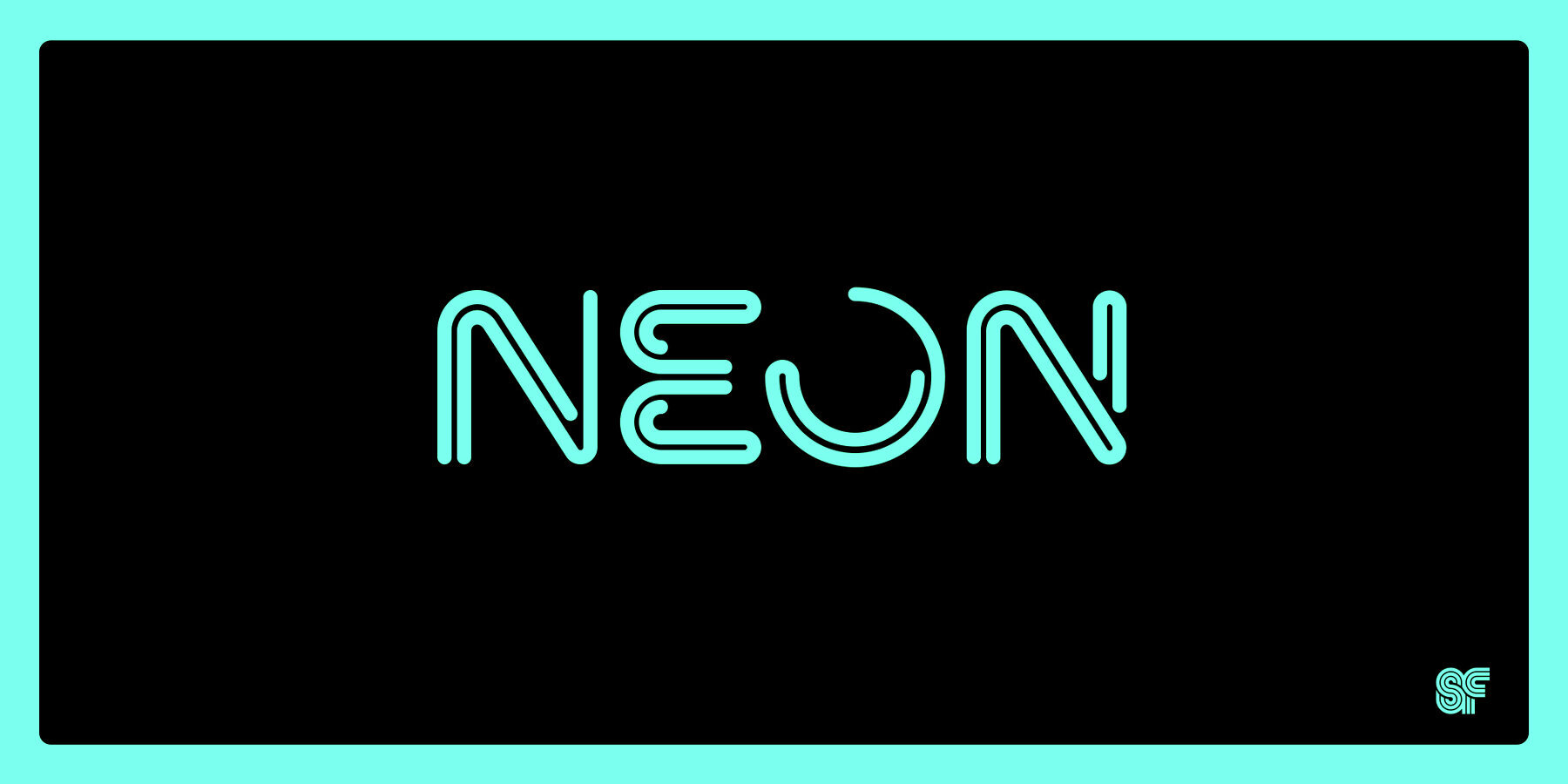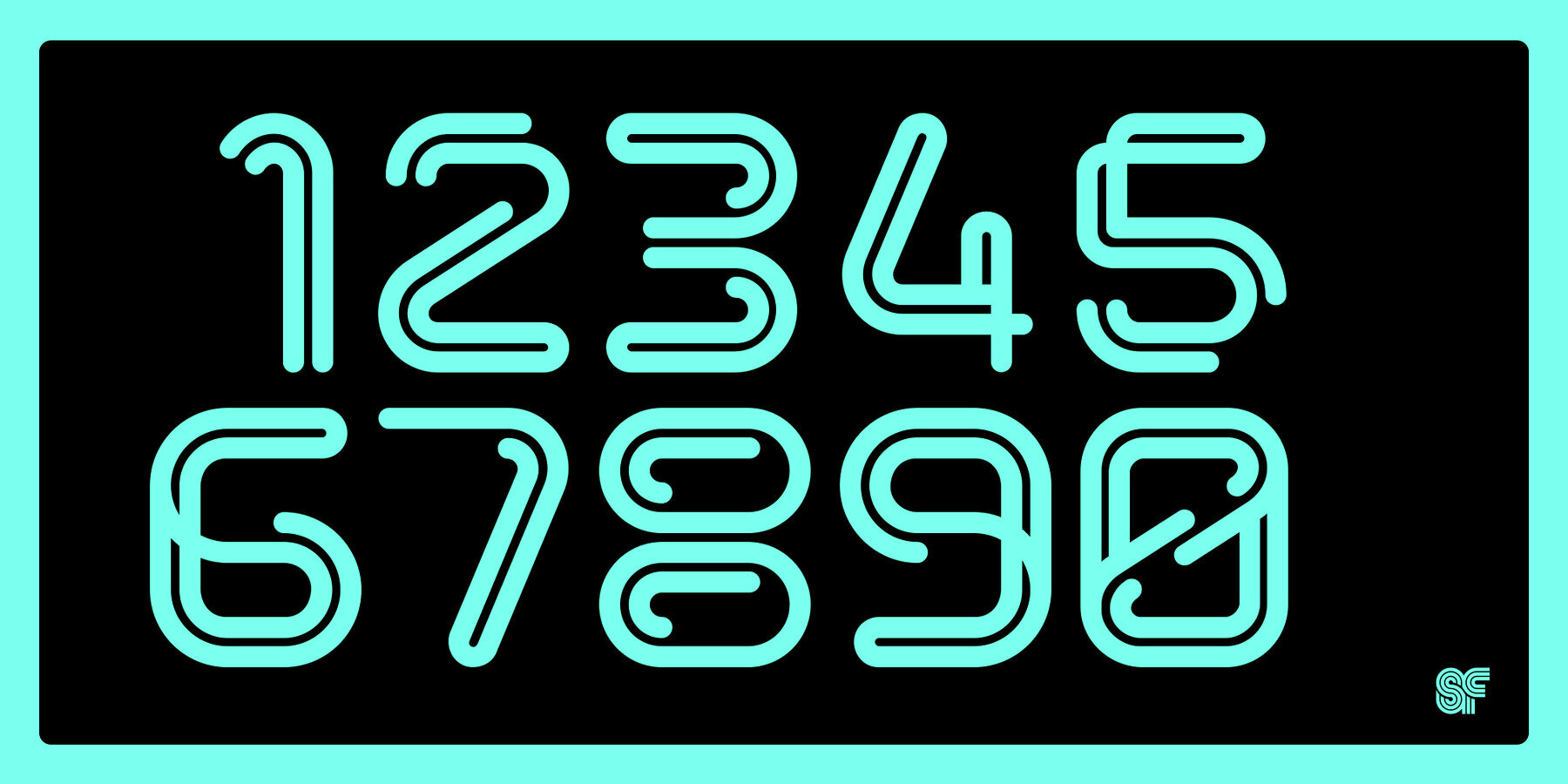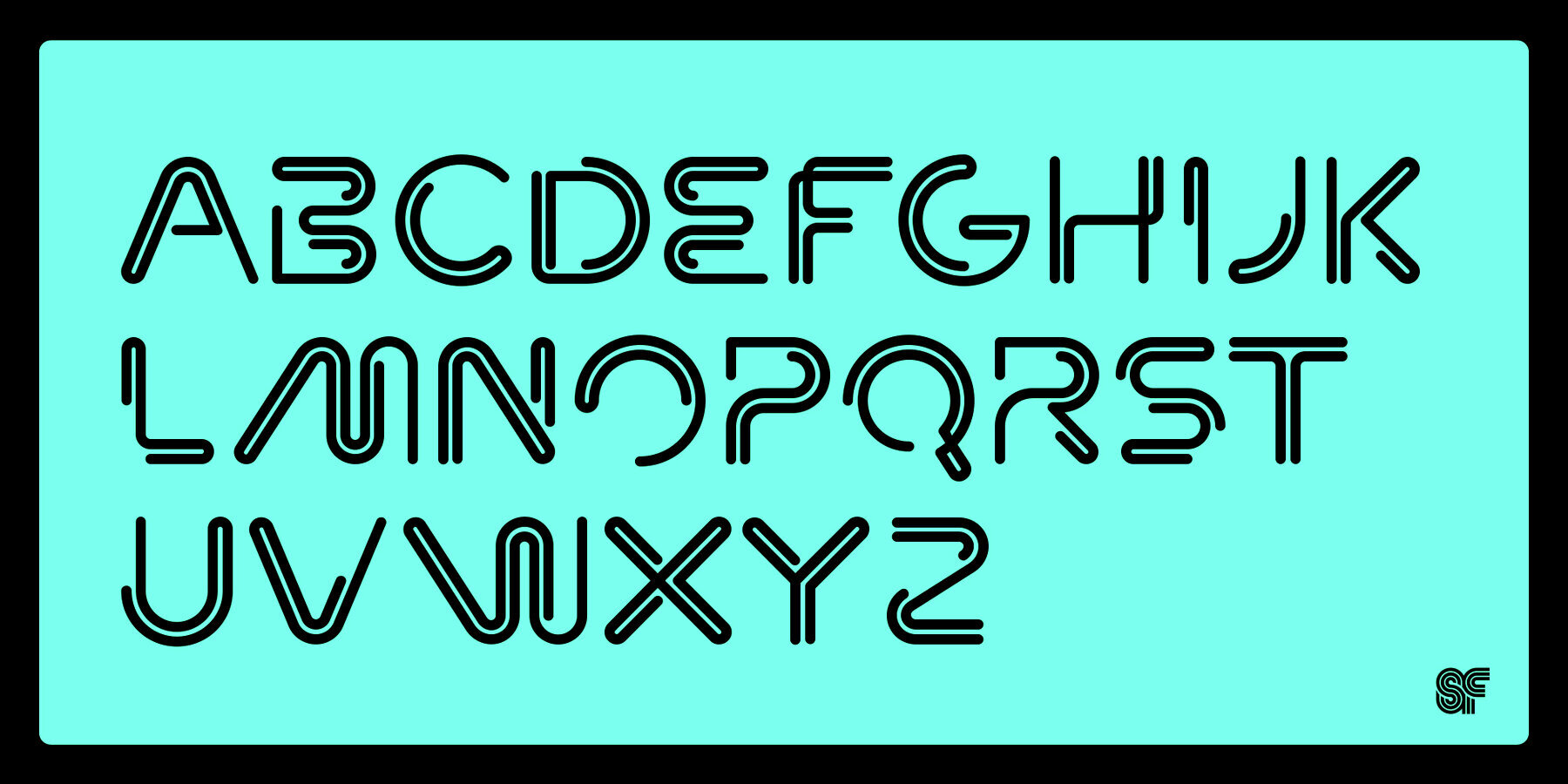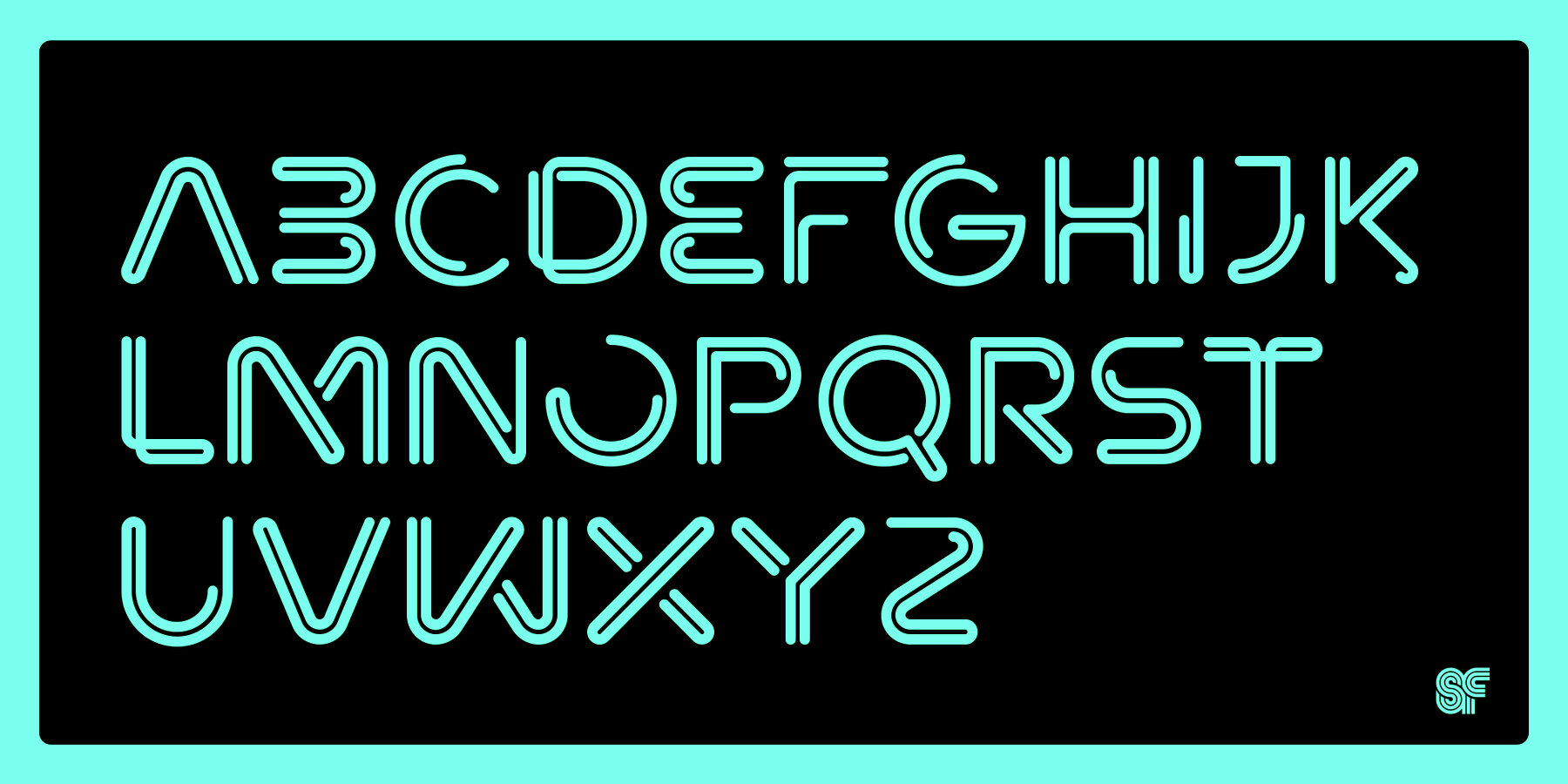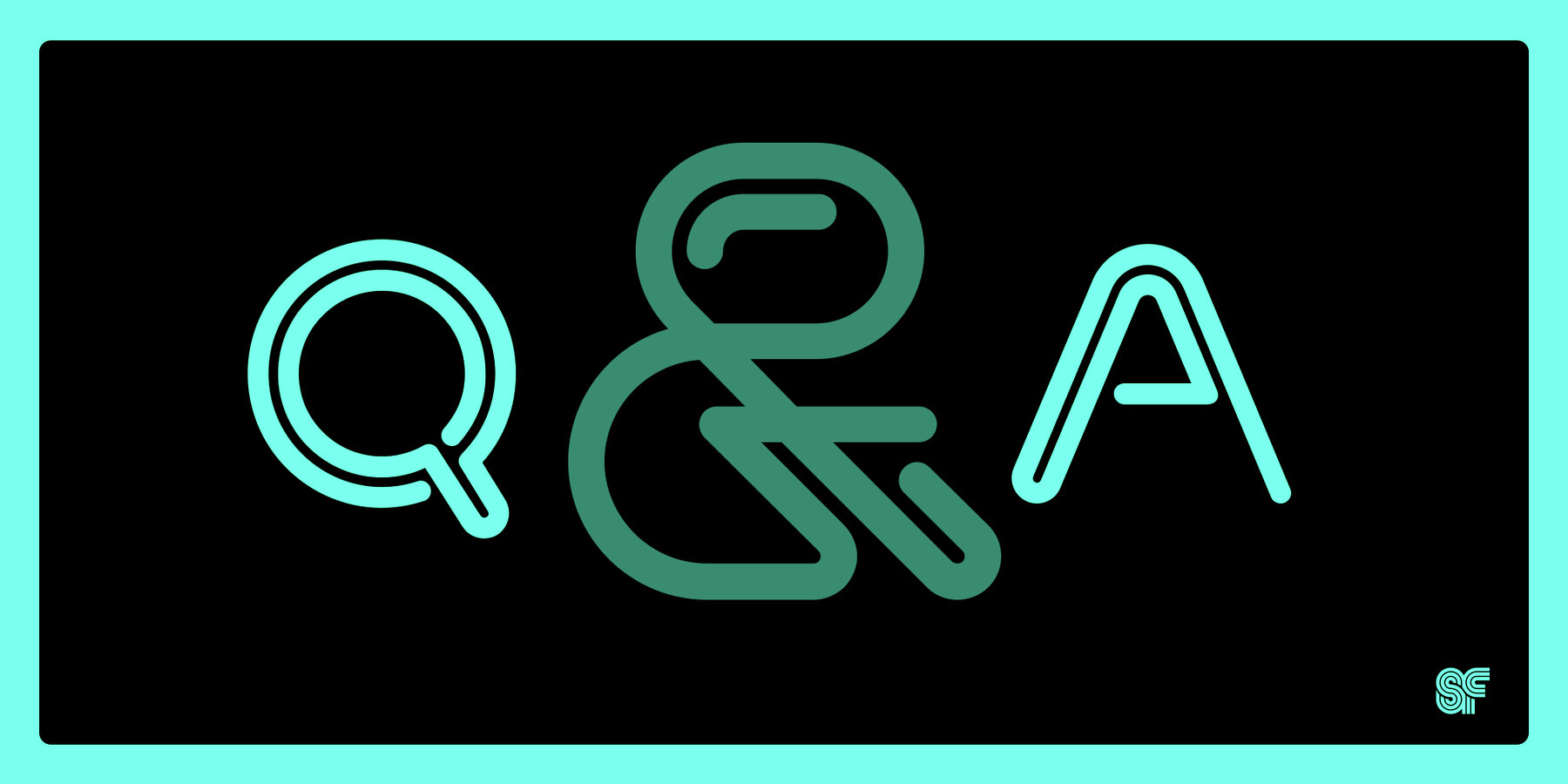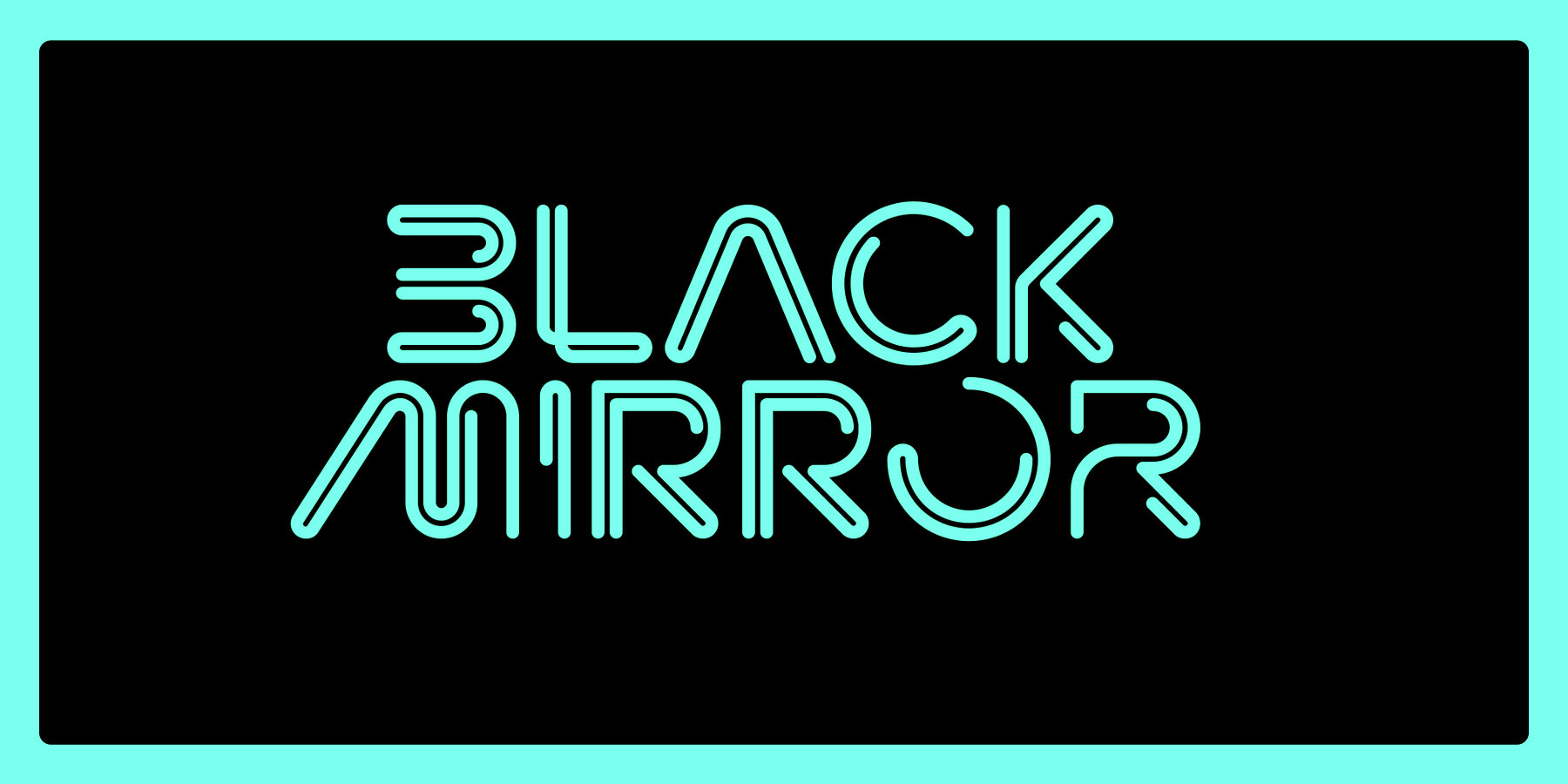
Neon 1
Neon is an experimental, retro display typeface designed by Superfried. Neon features two styles which can be toggled via shift. As the name suggests styling for the typeface started with classic neon signage, but quickly took a new direction of it’s own resulting in a very distinct & versatile display face.